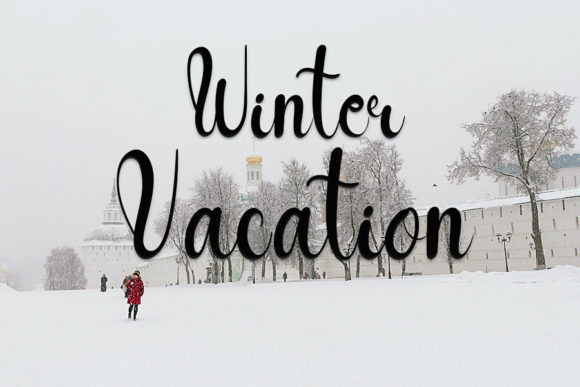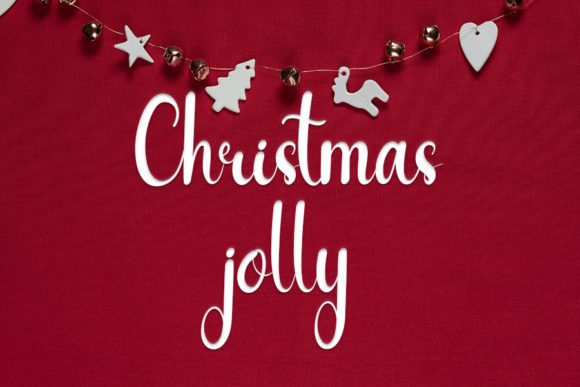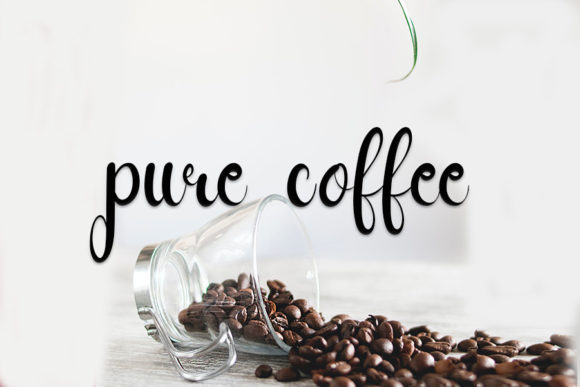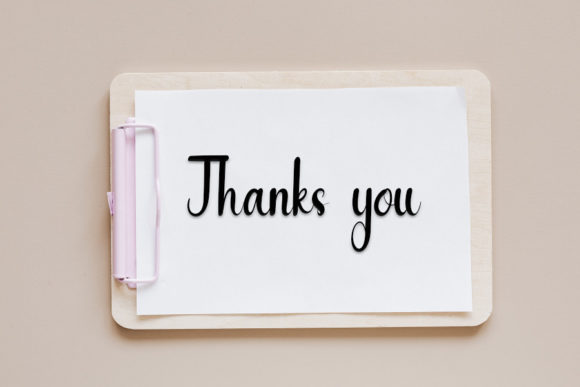
Bullshit Font: Elevate Your Designs with a Touch of Class and Whimsy
In the world of typography, fonts are more than just a means to convey words; they’re an expression of style, tone, and personality. Among the myriad of fonts available to designers and crafters, one that stands out for its unique blend of elegance and casual charm is the Bullshit Font. This article delves into the essence of the Bullshit Font, exploring its design characteristics, the inspiration behind it, and how it can be a game-changer for your creative projects.
The Essence of Bullshit Font
Bullshit Font is described as a casual handwritten font, meticulously crafted to resonate with a broad audience. It strikes a delicate balance between maintaining classy calligraphic influences and exuding a contemporary, fresh vibe. This font is not just about aesthetics; it’s about conveying a message with a personal touch that traditional fonts might lack.
The Bullshit Font boasts several design characteristics that make it a standout choice for designers:
- Classy Calligraphic Influences: It inherits the elegance and fluidity of calligraphy, making it perfect for projects that require a touch of sophistication.
- Casual and Handwritten: Despite its classy roots, the font retains a casual, approachable feel, suitable for a wide range of applications, from digital content to print materials.
- Contemporary and Fresh: The font’s modern twist ensures it feels current and engaging, appealing to audiences of all ages.
The Inspiration Behind Bullshit Font
While the specific inspiration behind Bullshit Font might not be widely documented, it’s clear that the creators aimed to develop a font that could serve as a versatile tool for creatives. The goal was to craft a typeface that could seamlessly blend into various design contexts, from editorial and advertising to packaging and digital media.
Applications of Bullshit Font
The versatility of Bullshit Font makes it suitable for a multitude of projects:
- Branding: Use it to create a distinctive brand voice that stands out in your industry.
- Digital Content: Enhance your blog posts, social media graphics, and website content with a personal and engaging touch.
- Print Materials: From brochures and flyers to business cards and invitations, this font can elevate the visual appeal of your print materials.
- Art and Craft Projects: For crafters and artists, Bullshit Font can add a professional yet playful element to handmade goods, artwork, and creative journals.
Why Choose Bullshit Font?
In a sea of fonts, Bullshit Font offers several advantages:
- Uniqueness: It provides a distinctive look that can set your designs apart.
- Versatility: Its adaptability across various mediums and design applications.
- Emotional Connection: The font’s friendly and approachable nature can help create a stronger connection with your audience.
Bullshit Font is more than just a typeface; it’s a design companion that can elevate your projects to new heights. With its perfect blend of classy calligraphic influences and a fresh, contemporary feel, it offers a unique opportunity to infuse personality and style into your designs. Whether you’re a professional designer or a crafting enthusiast, Bullshit Font is sure to become a favorite in your creative arsenal. So, fall in love with it, and let it bring your projects to the highest levels of aesthetic appeal and communicative power.